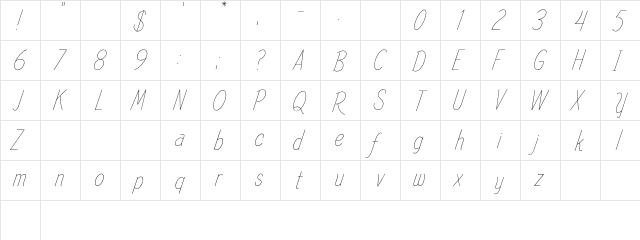
Spindle Refined Regular
Design Context for Spindle Refined Typeface
Spindle Refined takes a measured approach to typography — its balanced proportions and neutral character make it a reliable workhorse for both digital and print work.
Pro Tip: Use Spindle Refined in both headline and body roles to test its range before committing to a single application.